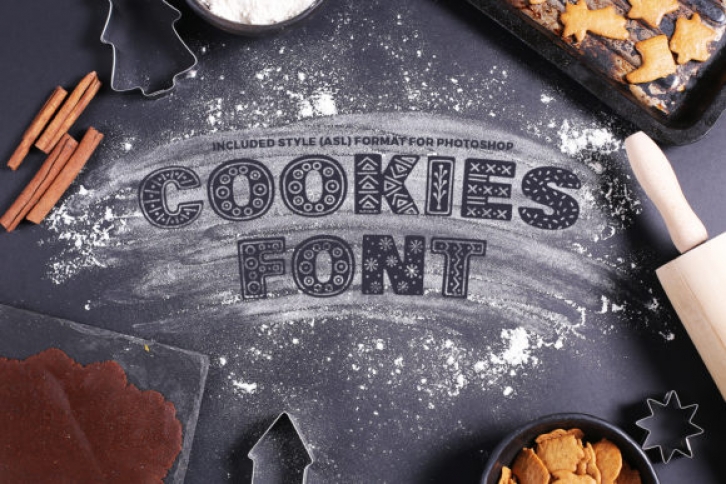
Cookies is a beautiful display font. It features a Christmas style and it will cheer up your Holidays projects. Get inspired by its amazing extras, and add a holiday twist to any crafting idea.